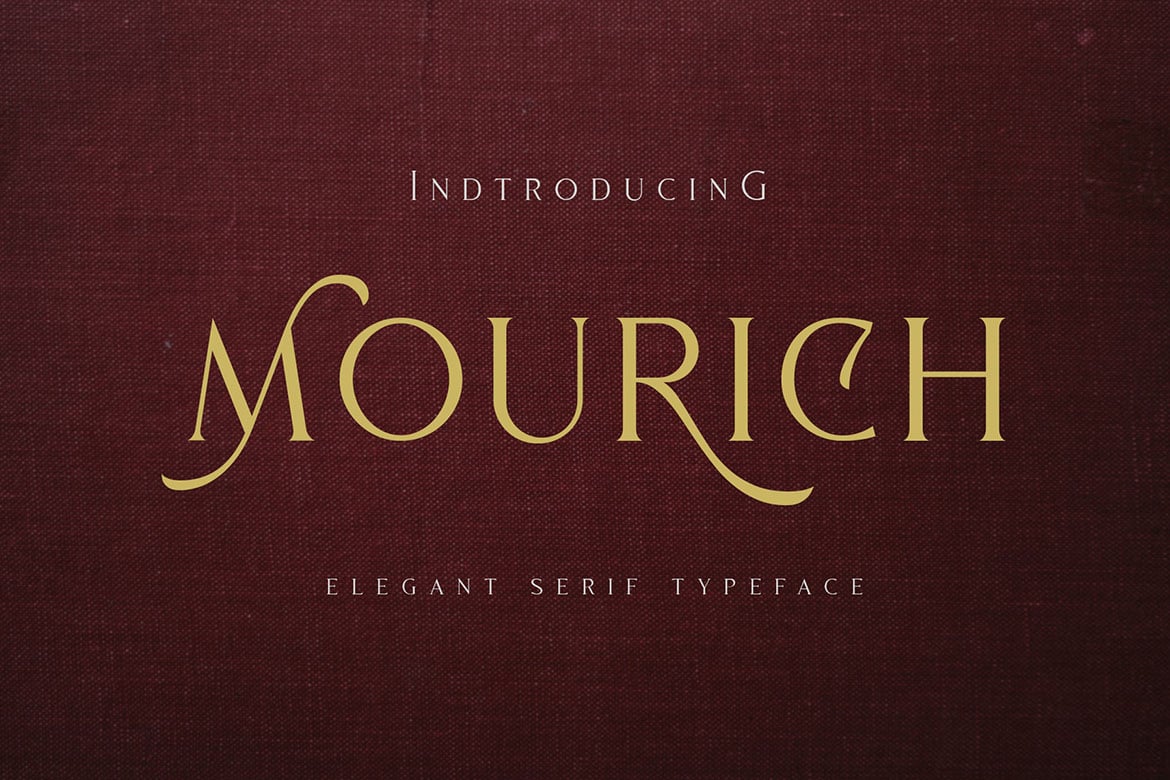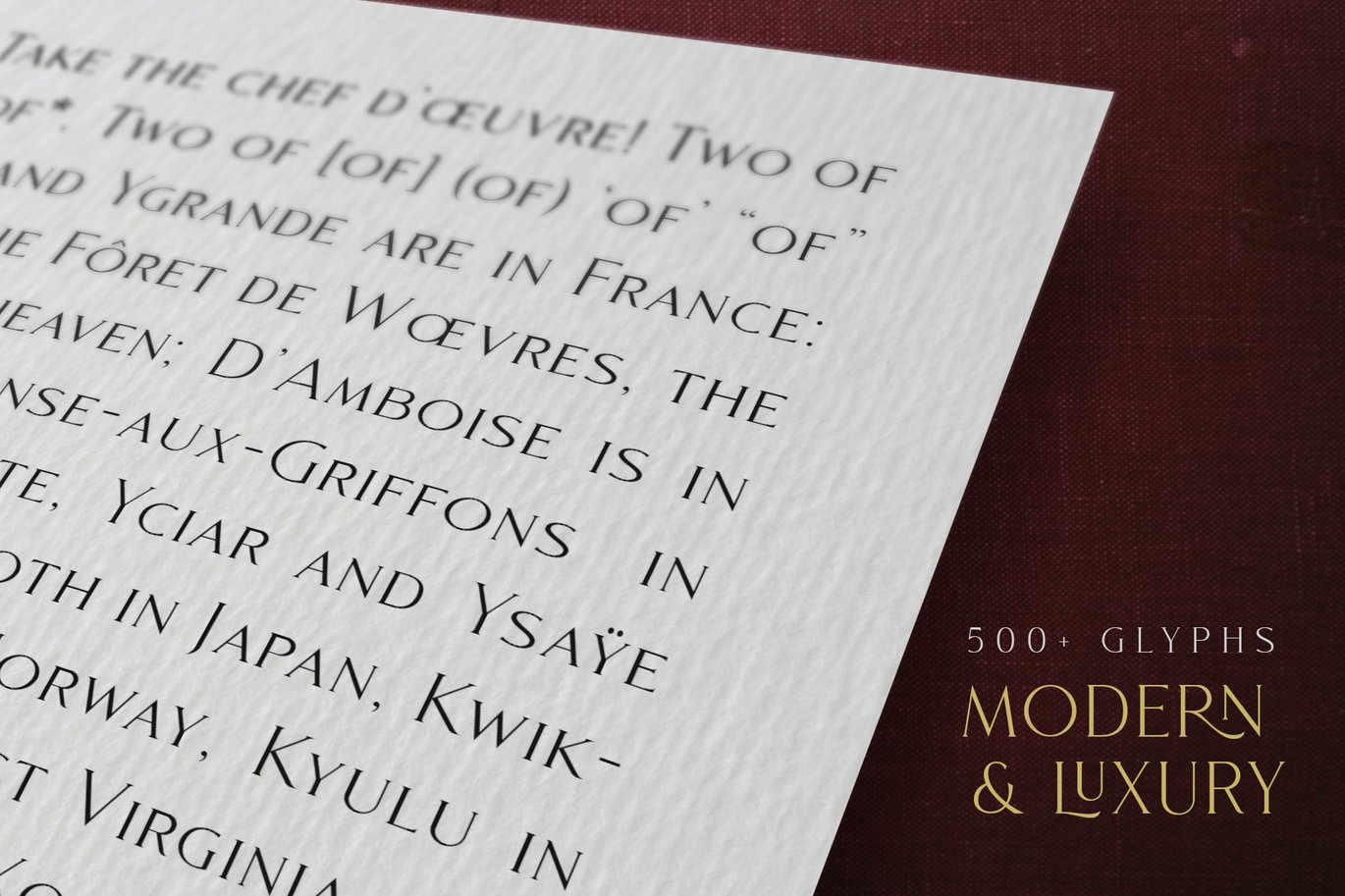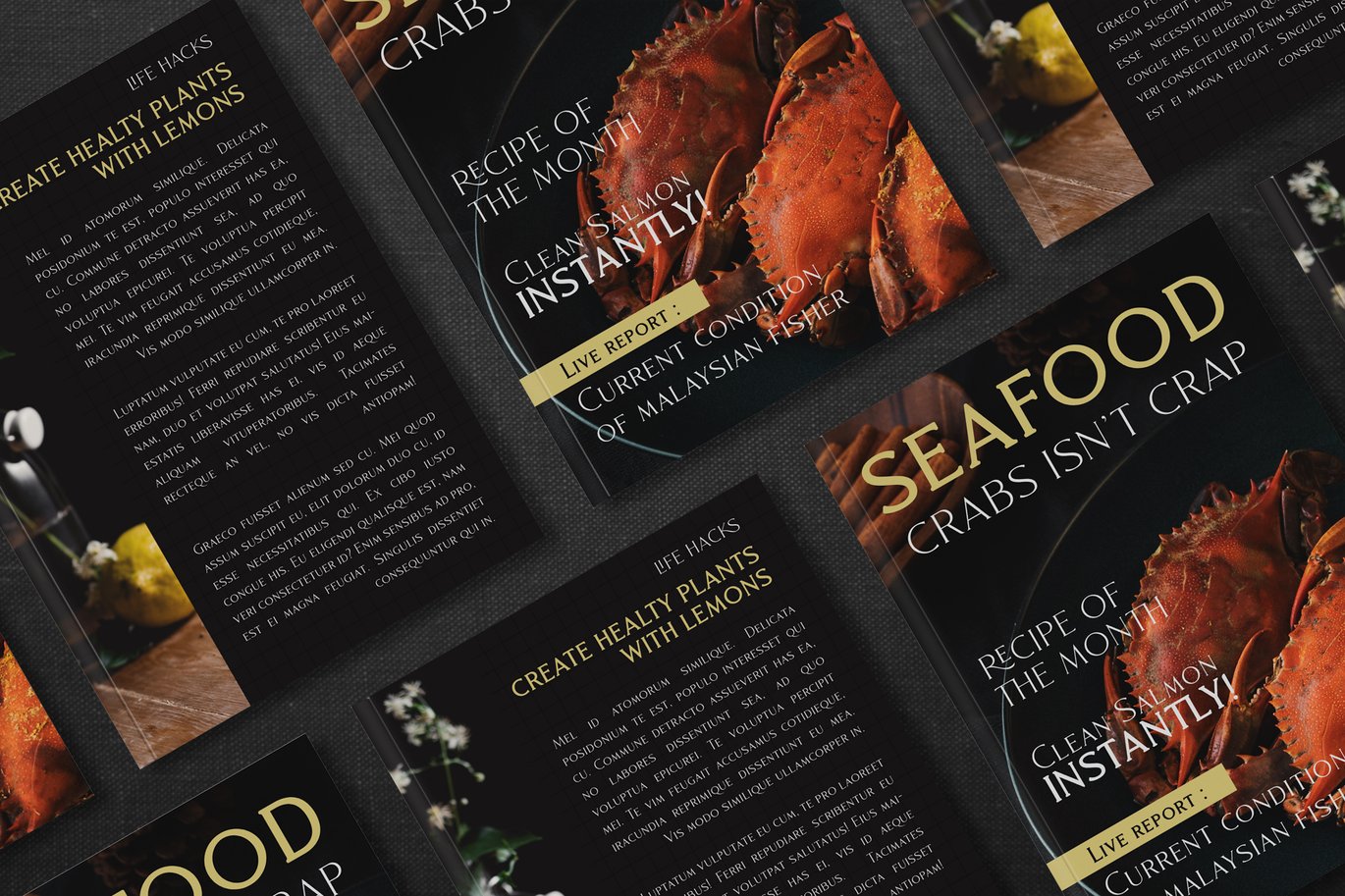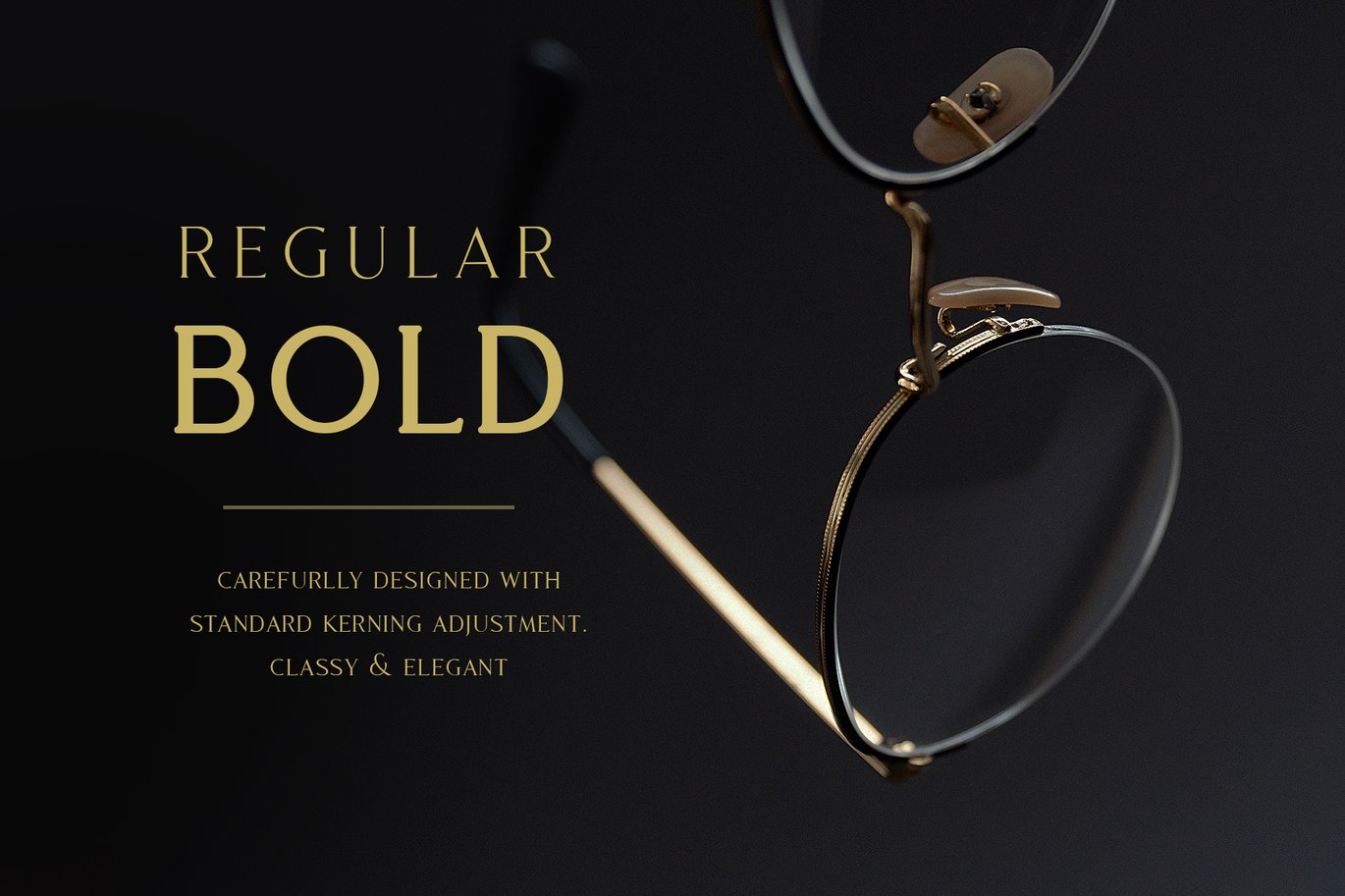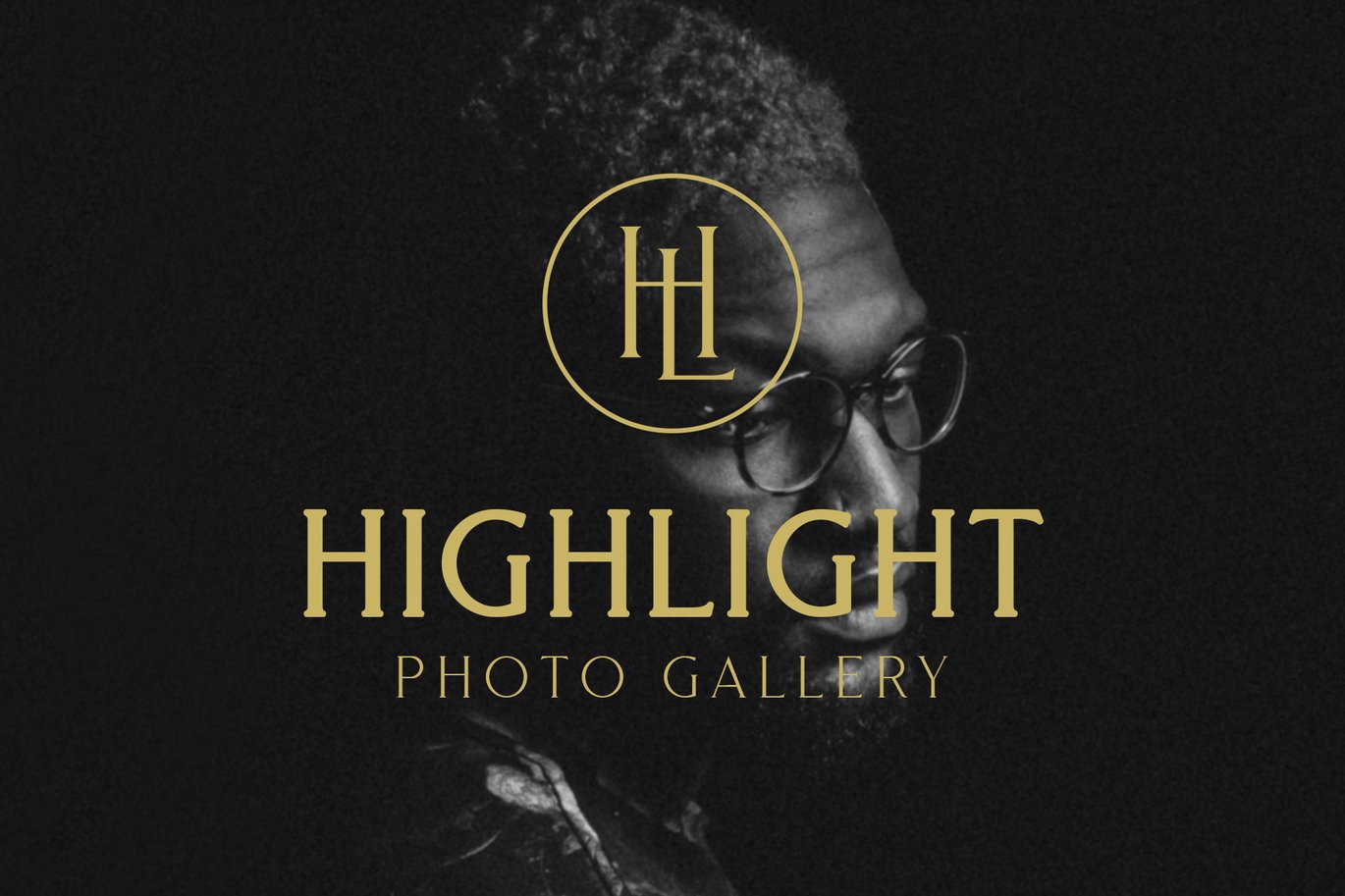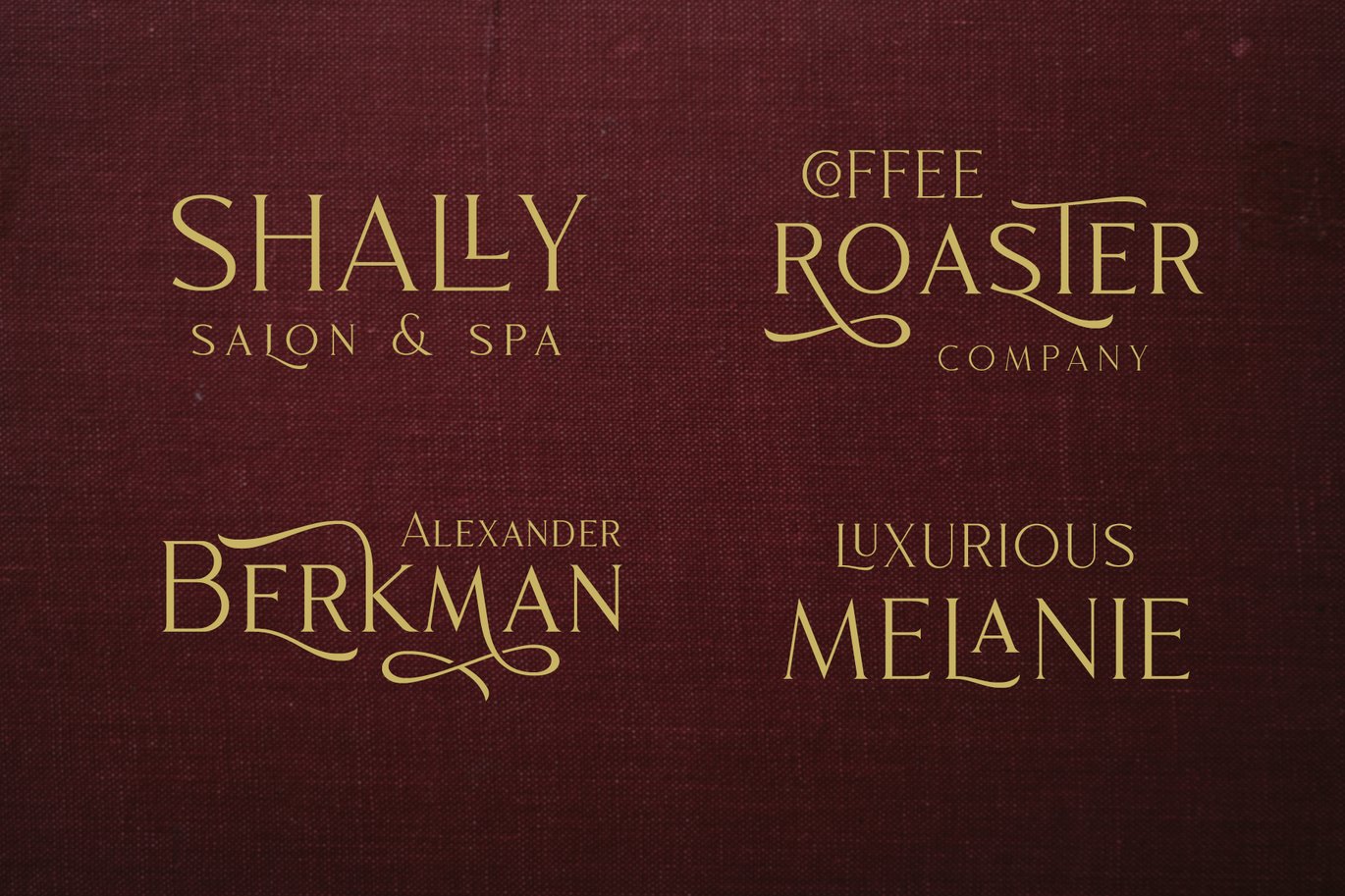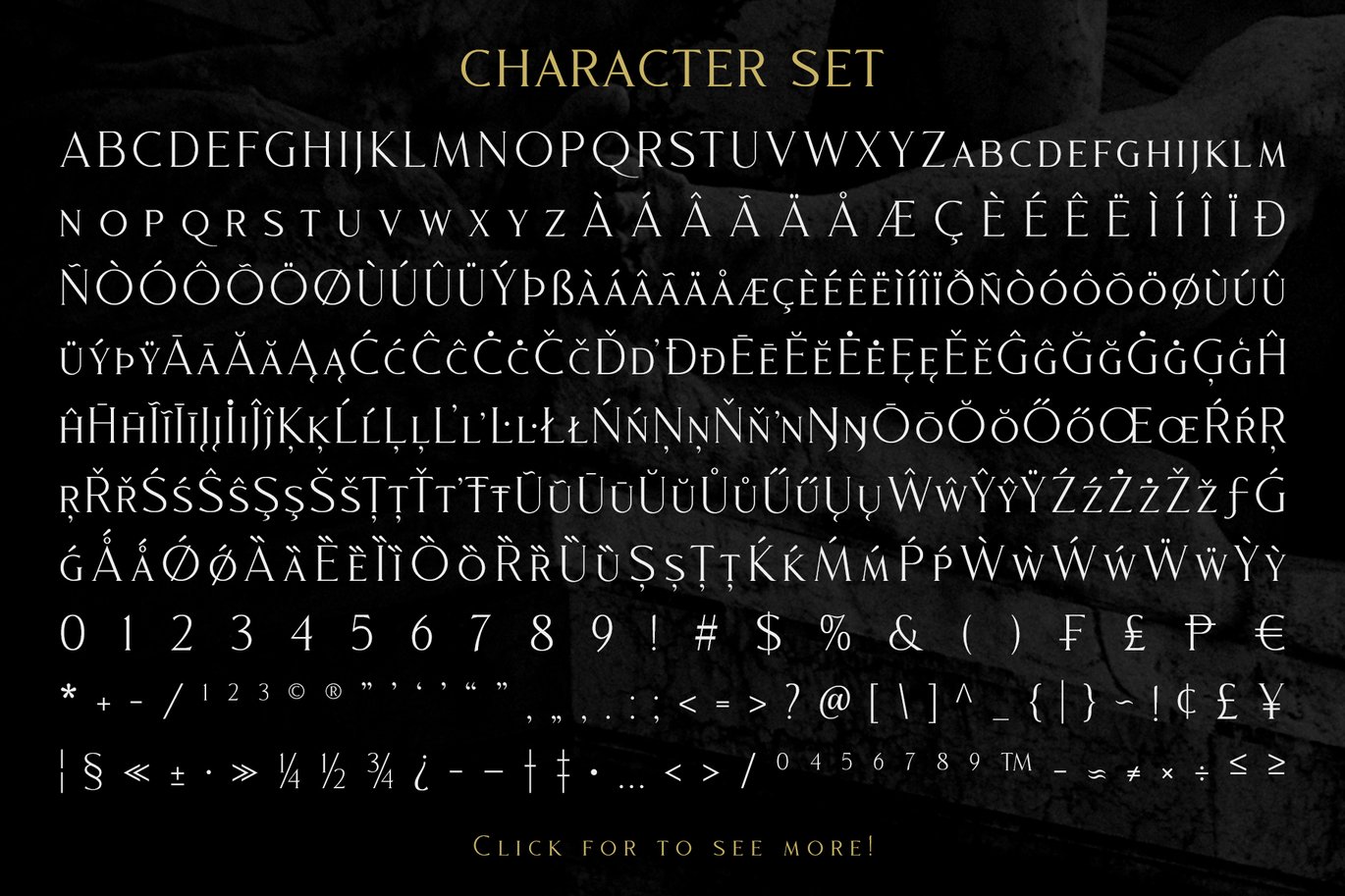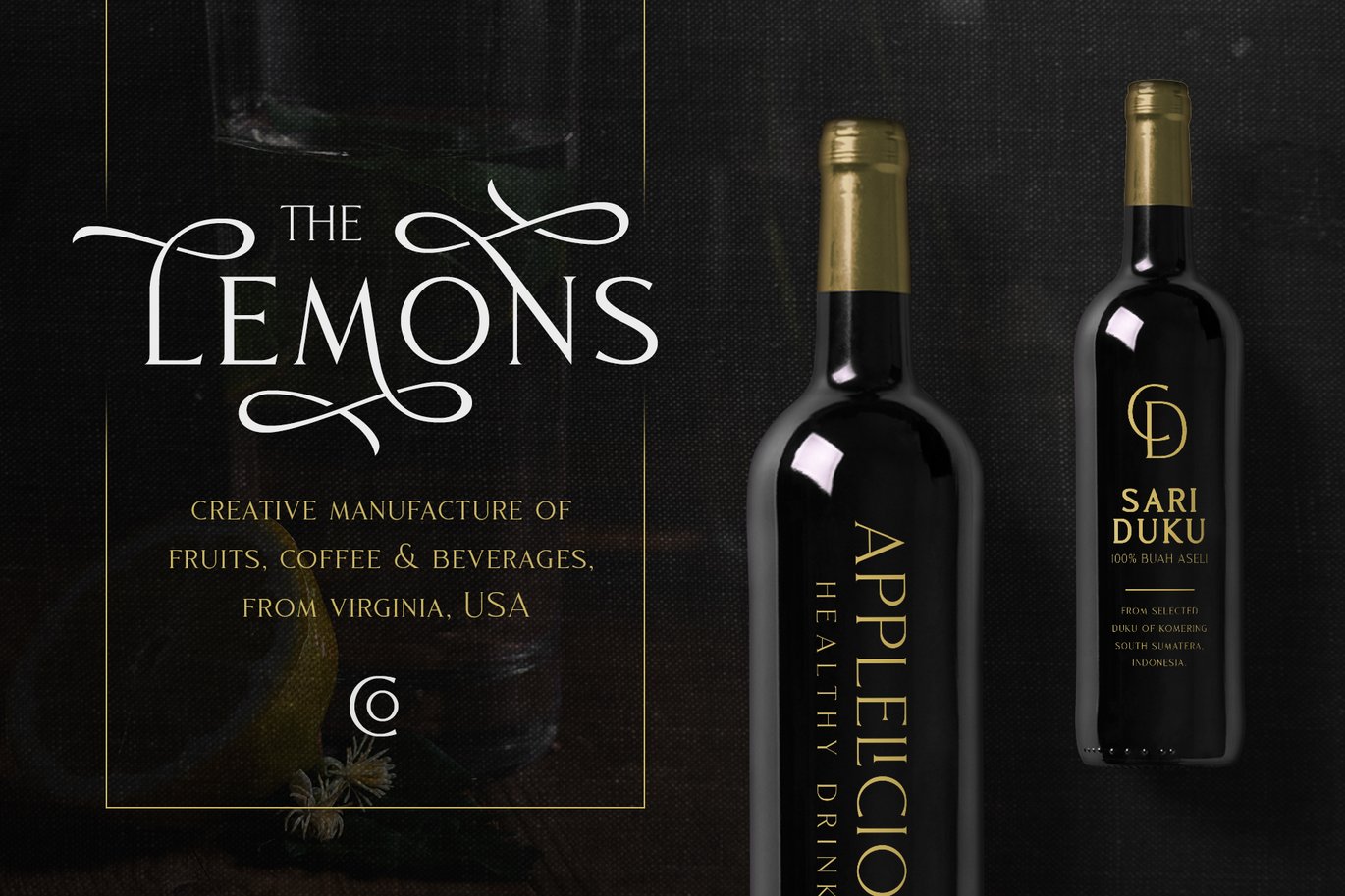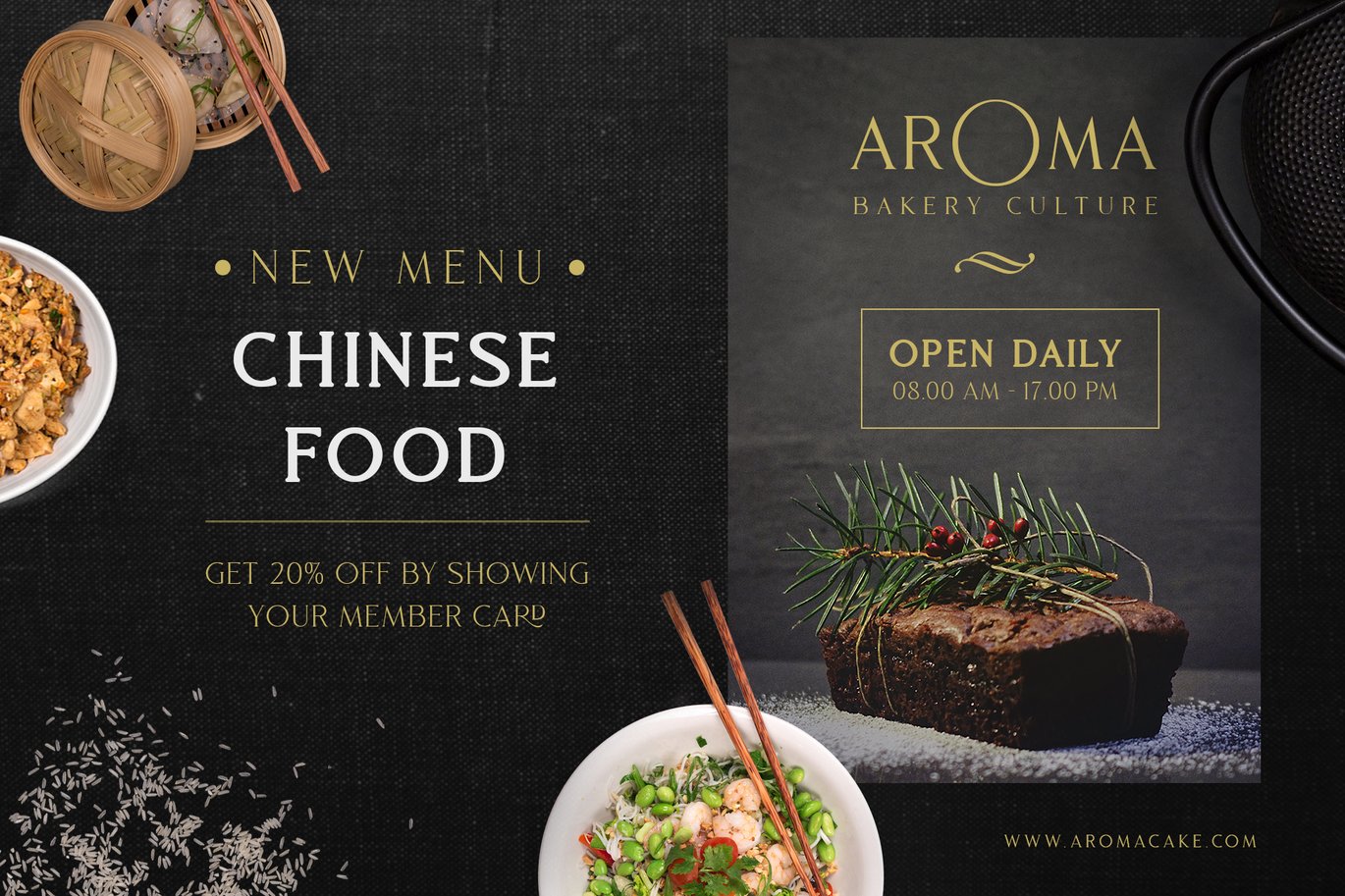
Mourich – Elegant Font
Introducing: Mourich Elegant Serif Font
The stylish serif font with 2 styles that recommended for stylish and minimalist design. Carefully designed with medium contrast of the strokes. The stylish serif with 2 styles that recommended for stylish and minimalist design. Carefully designed with medium contrast of the strokes. This font is an all-caps font or has small capitals that very useful for the headline or logo. Suitable in large or small sizes.
Mourich has 500+ glyphs with many OpenType features. There are beautiful ligatures, Stylistic alternates, and swashes which you can use it to get your design more softly.
Mourich Bold is has 20pt thick from the regular style. The rounded serif gives a strong and assertive look. Beautiful to use as standalone type or combine with regular style. Very recommended for the headline.